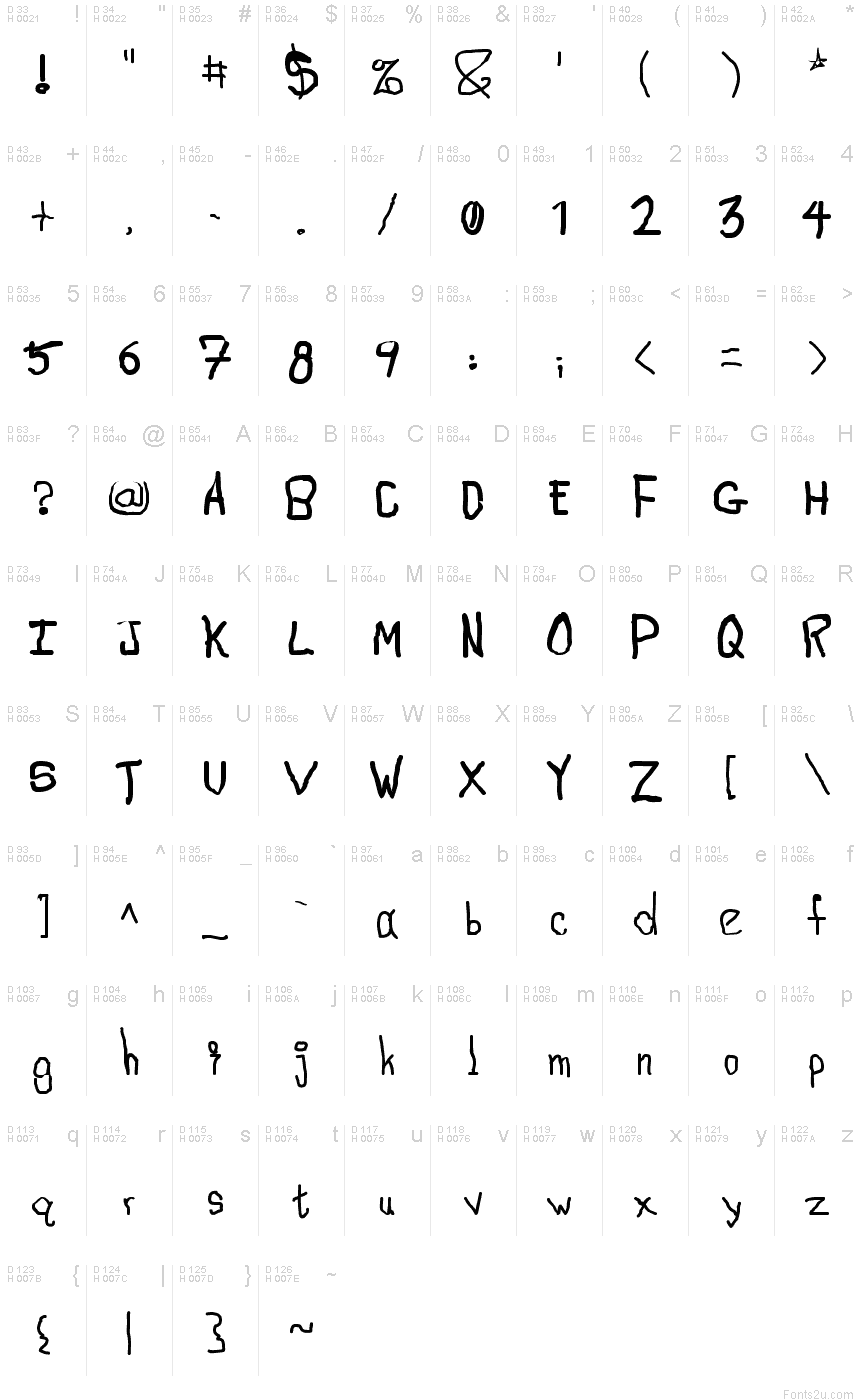
711 Slurpie
711 Slurpie is a distinctive handwritten font that exudes a playful and energetic vibe. Crafted by designer TeA Calcium, this font boasts striking characters that seamlessly blend whimsical curves and bold, angular strokes. The uneven line work and organic flow create a sense of authentic, hand-drawn charm, lending a touch of personality and character to any design.
Ideal for a wide range of applications, from modern branding and packaging to editorial layouts and social media content, 711 Slurpie offers a refreshing alternative to more traditional handwritten styles. Its versatility makes it a compelling choice for projects seeking to convey a unique, youthful, and approachable aesthetic.